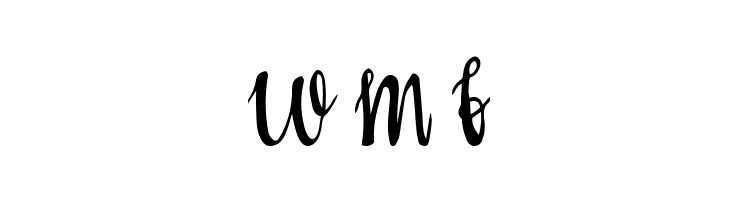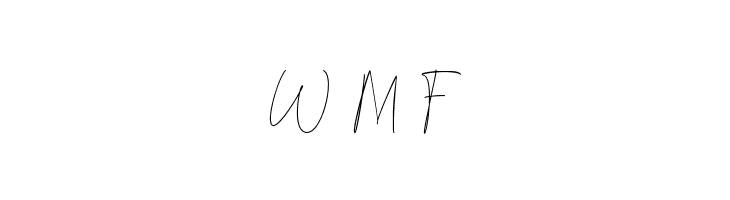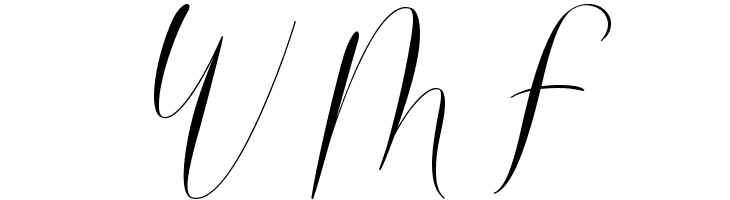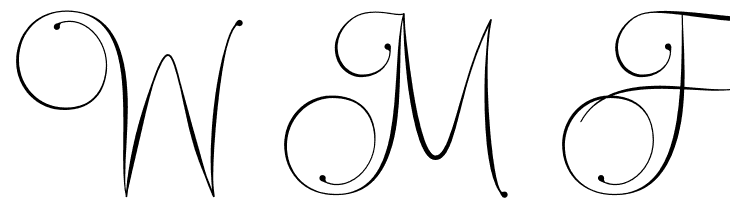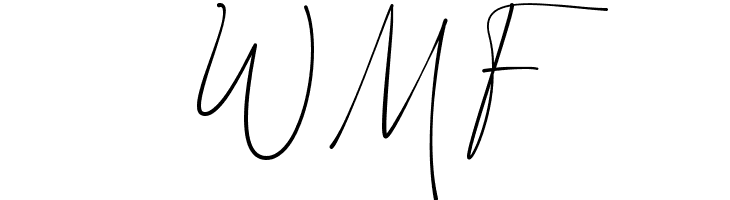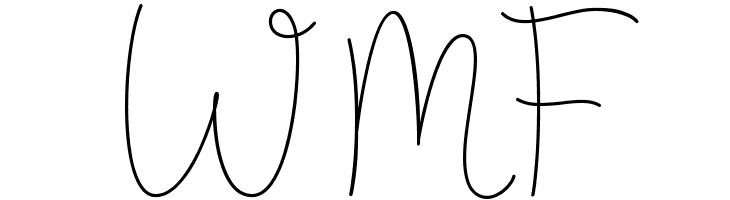
A playful, hand-drawn font with bold, rounded characters.
A lively and flowing script font with elegant, cursive strokes.
A lively and playful script font with a handwritten feel.
A casual, handwritten font with elongated, slanted letters and thin strokes.
A graceful script font with flowing, interconnected letters and a sophisticated style.
An elegant script font with intricate swirls and high contrast, perfect for decorative uses.
An elegant, cursive font with a hand-drawn, sophisticated style.
A playful, hand-drawn font with bold, irregular strokes and a dynamic style.
A delicate, flowing script font with elegant, elongated letterforms.
A playful, handwritten font with smooth curves and a casual style.